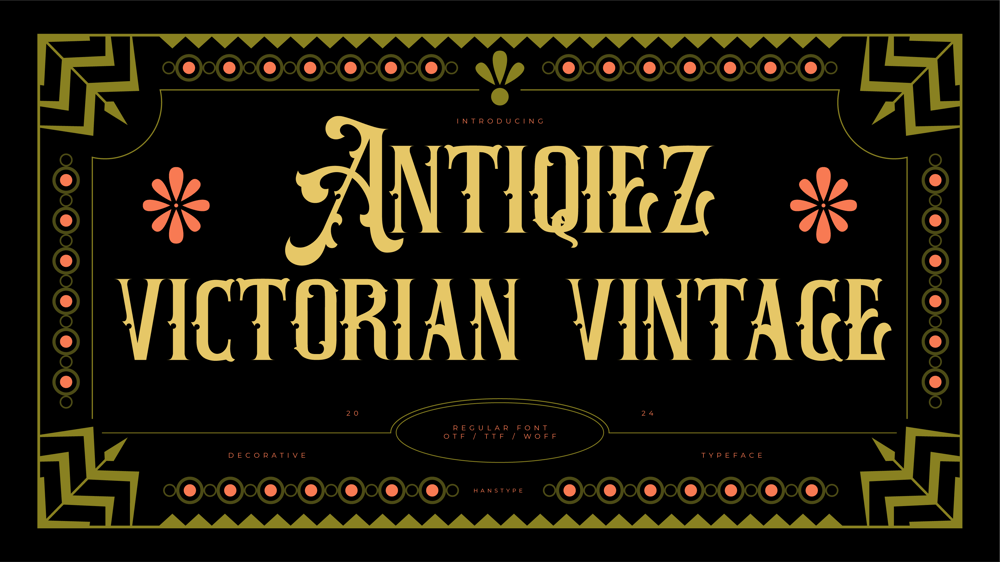
Antiqiez
Antiqiez font
Antiqiez Font Family was designed by Agus Prima and published by Hanstype. Antiqiez contains 1 styles and family package options. Antiqiez is a vintage-inspired serif font that masterfully combines timeless elegance with undeniable strength. Drawing inspiration from classic typography, it captures the essence of sophisticated design, making it a standout choice for anyone seeking a bold, yet refined typeface. Its distinct characteristics lend themselves to a sense of prestige, making it perfect for projects that demand both style and substance.Crafted for those who appreciate the boldness of traditional letterforms, Antiqiez stands as a powerful display typeface that commands attention. Its unique features not only pay homage to the past but also bring a sense of modernity, offering versatility across various creative applications. Whether used in branding, editorial design, or headlines, Antiqiez exudes a striking presence that remains memorable and impactful.